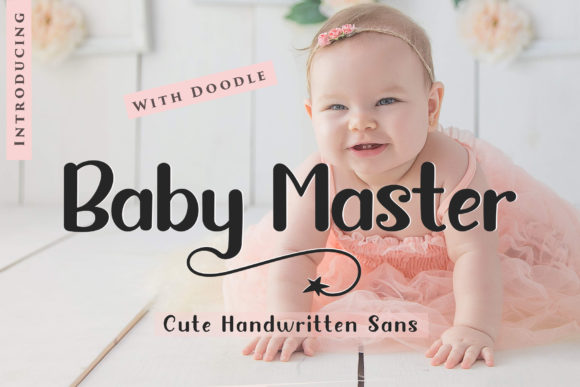
Behold the wonderous sight of Baby Master, a stunning sans serif font crafted with exquisite artistry, designed to captivate the hearts of the young and old alike! This masterpiece, brought to life by the talented strokes of Sulthan Studio, blooms with a playful spirit, embodying the essence of childhood dreams and adventures.
Baby Master's cheerful and vibrant personality dances through every word, effortlessly transforming kids-friendly designs into mesmerizing masterpieces. Its beautifully handwritten letters, infused with a touch of whimsy and delight, ignite the imagination and bring a smile to every face that encounters them.
Whether you're designing a charming greeting card, crafting an invitation to a magical birthday party, or creating a whimsical children's book, Baby Master is your ultimate companion. Its enchanting nature effortlessly elevates any project, adding a spark of enchantment and cheerfulness that resonates with audiences of all ages.
Unleash your creativity and embark on an extraordinary typographic journey with Baby Master. Experience the joy of transforming ordinary words into extraordinary expressions, spreading happiness and wonder wherever your designs may travel.